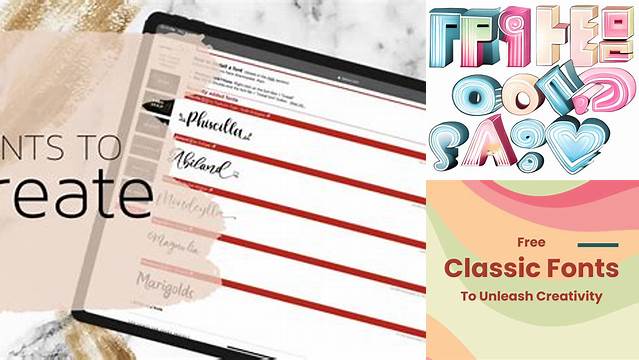
Free Procreate Fonts: Best Picks For Artists!
Hey everyone! Are you ready to take your Procreate artwork to the next level? One of the best ways to do that is by using amazing, unique fonts. And guess what? You don't always have to break the bank to find them. Let's dive into the world of free fonts for Procreate and how you can use them to create stunning designs.
1. Discovering the Best Free Fonts for Procreate
Finding the right free fonts for Procreate can feel like searching for a needle in a haystack, but trust me, it’s worth it! Start by exploring reputable websites like DaFont, Google Fonts, and Font Squirrel. These sites offer a vast collection of fonts that are free for personal use. When browsing, keep in mind the style of art you usually create. Are you into calligraphy, digital painting, or graphic design? Filter your search based on these categories to narrow down your options. Don't be afraid to download a bunch of fonts and test them out. You never know when you might find the perfect font that adds that special touch to your artwork. Remember to always check the license to ensure the font is free for the intended use, especially if you plan to use it commercially.
3. Utilizing Free Script Fonts in Procreate Designs
Looking to add a touch of elegance and personality to your Procreate designs? Free script fonts are the way to go! These fonts mimic the flowing strokes of handwriting and can make your artwork feel more personal and inviting. Think about using them for creating quotes, invitations, or logos. When using script fonts, pay attention to the spacing between letters (kerning) and the overall readability. Experiment with different sizes and colors to see what works best for your design. Keep in mind that some script fonts can be quite intricate, so make sure they don't clash with the rest of your artwork. Sometimes, less is more, so don't be afraid to use script fonts sparingly to create a subtle yet impactful effect.
4. Exploring Free Display Fonts for Eye-Catching Art
Need a font that screams attention? Free display fonts are designed to do just that! These fonts are bold, unique, and perfect for headlines, posters, and anything that needs to stand out. When choosing a display font, consider the overall tone of your artwork. Do you want something fun and playful, or something serious and professional? There are display fonts for every occasion. Just like with script fonts, readability is key. Make sure your text is easy to read, even with a flashy font. Experiment with different layering techniques and effects in Procreate to make your display fonts even more eye-catching. Add shadows, outlines, or gradients to make your text pop!
5. Mastering Free Serif Fonts for Procreate Projects
For a classic and professional look, you can't go wrong with free serif fonts. These fonts have small decorative strokes (serifs) at the end of each letter, giving them a timeless feel. Serif fonts are great for body text, headings, and anything that needs to convey authority and trustworthiness. Think about using them for creating digital books, articles, or formal invitations. When working with serif fonts, pay attention to the line height and letter spacing to ensure optimal readability. Experiment with different weights (bold, regular, light) to create visual hierarchy in your design. Don't be afraid to pair serif fonts with sans-serif fonts to create a balanced and harmonious look.
6. The Charm of Free Sans-Serif Fonts in Procreate
Free sans-serif fonts are the modern and minimalist cousins of serif fonts. They lack the decorative strokes, giving them a clean and contemporary look. Sans-serif fonts are incredibly versatile and can be used for everything from logos to website designs. They're particularly well-suited for digital screens, as they tend to be more readable at smaller sizes. When choosing a sans-serif font, consider the overall style of your project. Do you want something sleek and professional, or something more casual and friendly? There are tons of options to choose from! Experiment with different font weights and styles to create visual interest in your designs. And don't forget to play around with color and spacing to make your text truly stand out.
7. Blending Free Handwritten Fonts for a Personal Touch
Want to make your Procreate artwork feel extra personal? Try using free handwritten fonts! These fonts mimic the look of actual handwriting, adding a touch of authenticity and warmth to your designs. They're perfect for creating greeting cards, journal entries, or anything that needs a personal touch. When using handwritten fonts, be mindful of readability. Some handwritten fonts can be quite messy, so make sure your text is still easy to read. Experiment with different colors and textures to enhance the handwritten effect. Consider adding subtle imperfections, like slight variations in line weight or letter spacing, to make your text look even more realistic. Remember, the goal is to create something that feels genuine and heartfelt.
8. Finding Free Vintage Fonts for Procreate Retro Designs
If you're a fan of all things retro, free vintage fonts are your best friend! These fonts evoke the charm and nostalgia of bygone eras, adding a unique and stylish touch to your Procreate designs. Think about using them for creating posters, logos, or anything that needs a vintage vibe. When choosing a vintage font, consider the specific era you're trying to emulate. There are fonts that capture the spirit of the Art Deco era, the mid-century modern era, and everything in between. Experiment with different color palettes and textures to enhance the vintage effect. Consider adding distressed textures or faded colors to make your text look like it's been around for decades. Remember, the key to a successful vintage design is authenticity.
9. Accessing Free Cursive Fonts for Elegant Procreate Art
Free cursive fonts are similar to script fonts, but they tend to be more formal and elegant. They're perfect for adding a touch of sophistication to your Procreate artwork. Think about using them for creating wedding invitations, certificates, or anything that needs a touch of class. When using cursive fonts, pay attention to the spacing between letters and the overall flow of the text. Make sure your text is easy to read, even with the elaborate flourishes of the font. Experiment with different colors and embellishments to enhance the elegance of your design. Consider adding flourishes or swashes to the beginning and end of your text to create a truly stunning effect.
So there you have it, guys! A complete guide to using free fonts for Procreate. Have fun experimenting, and happy creating!